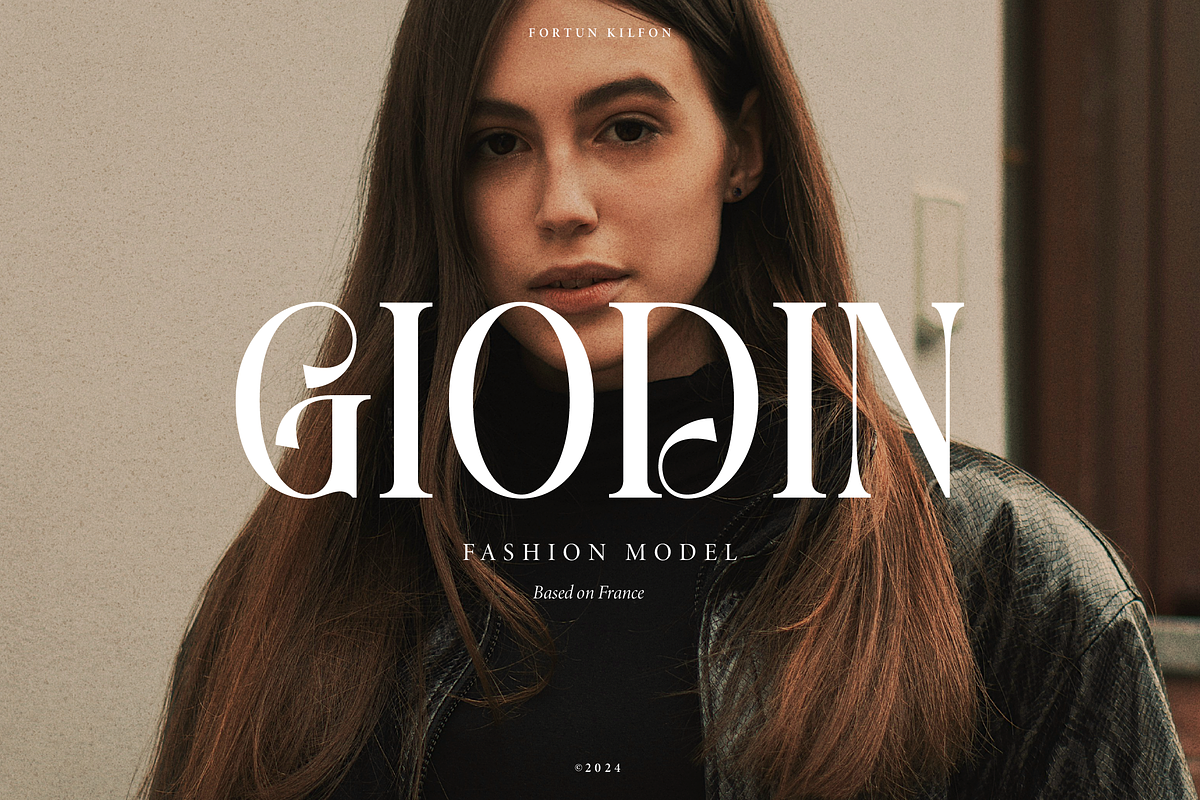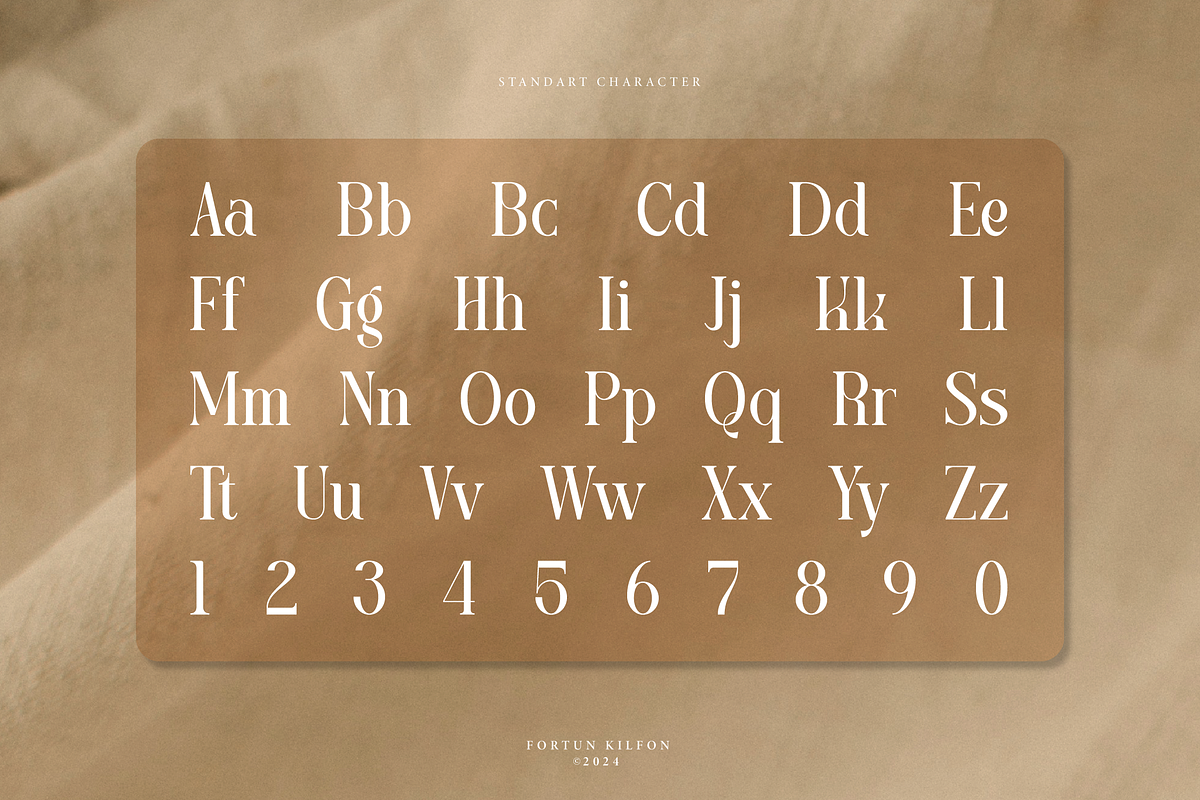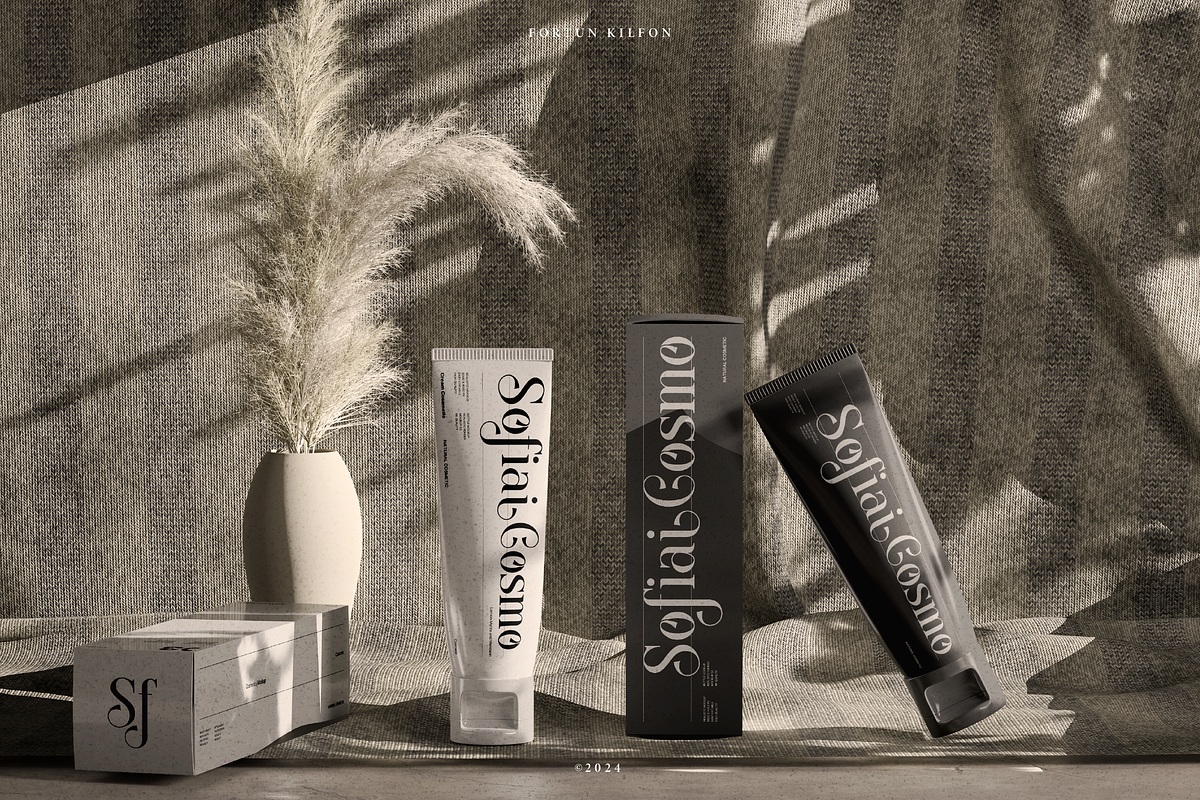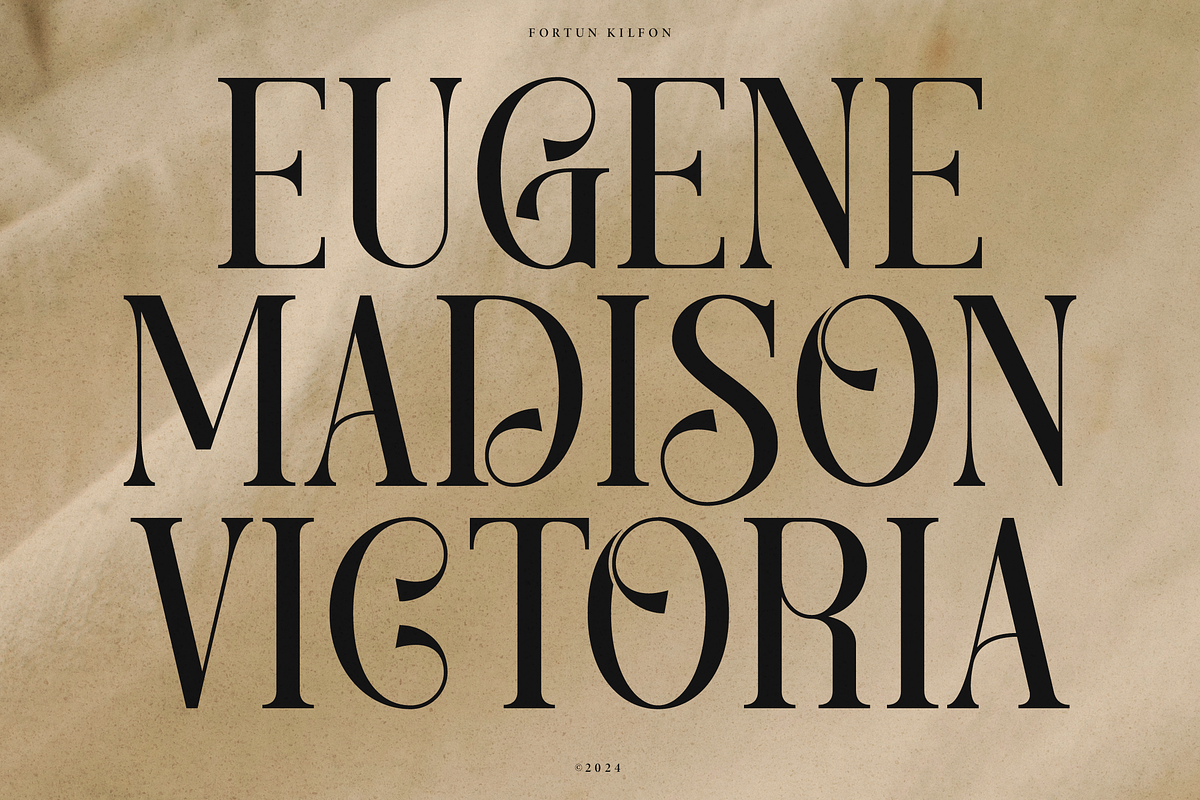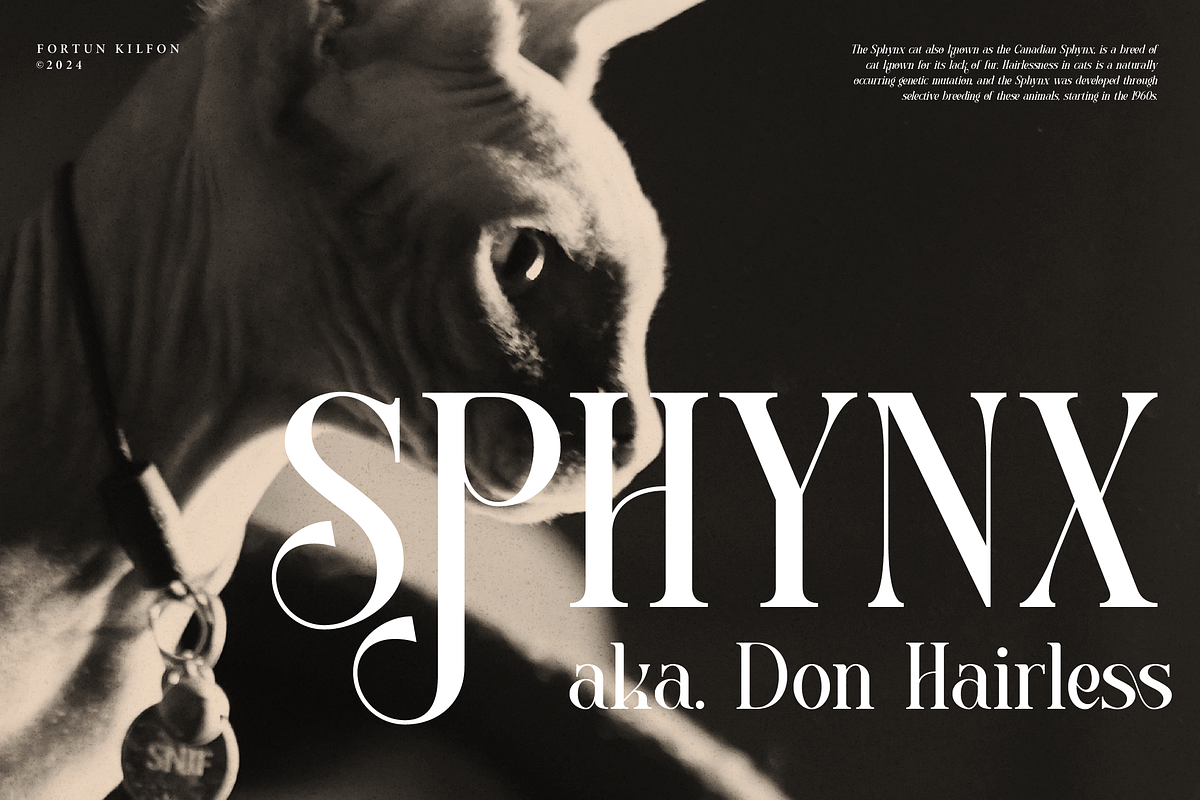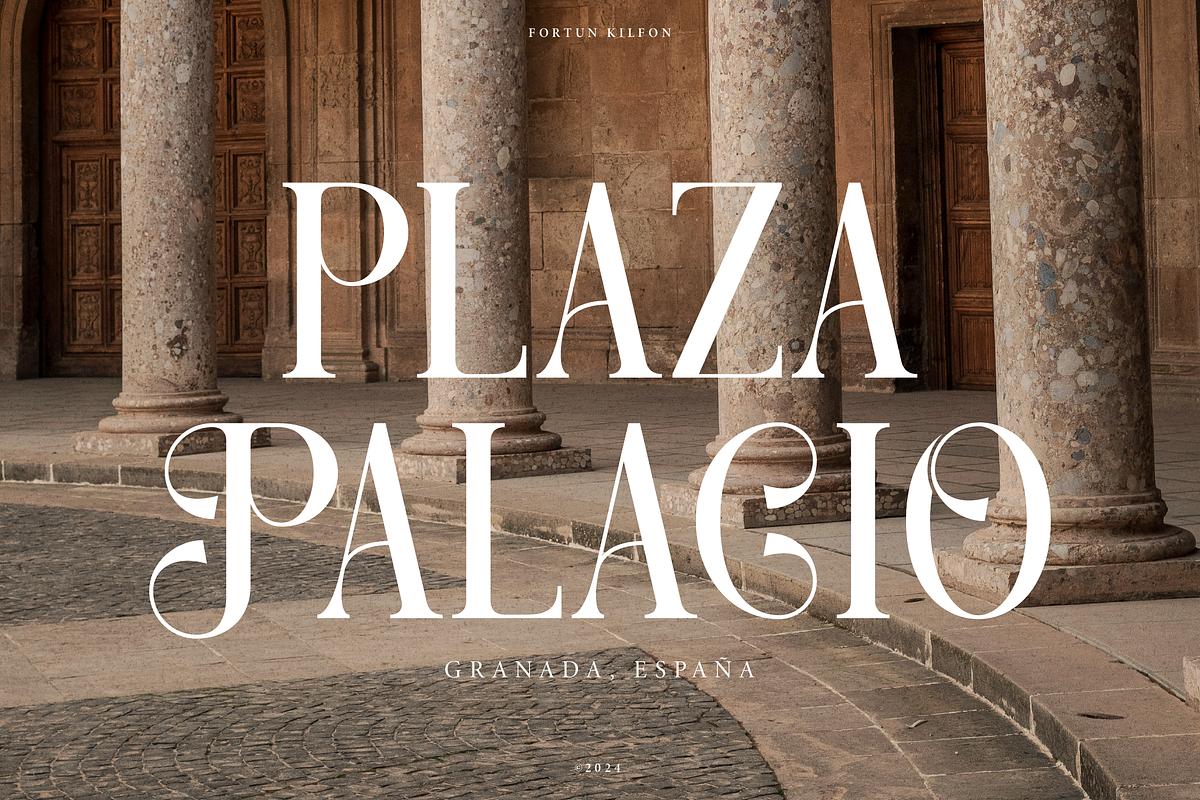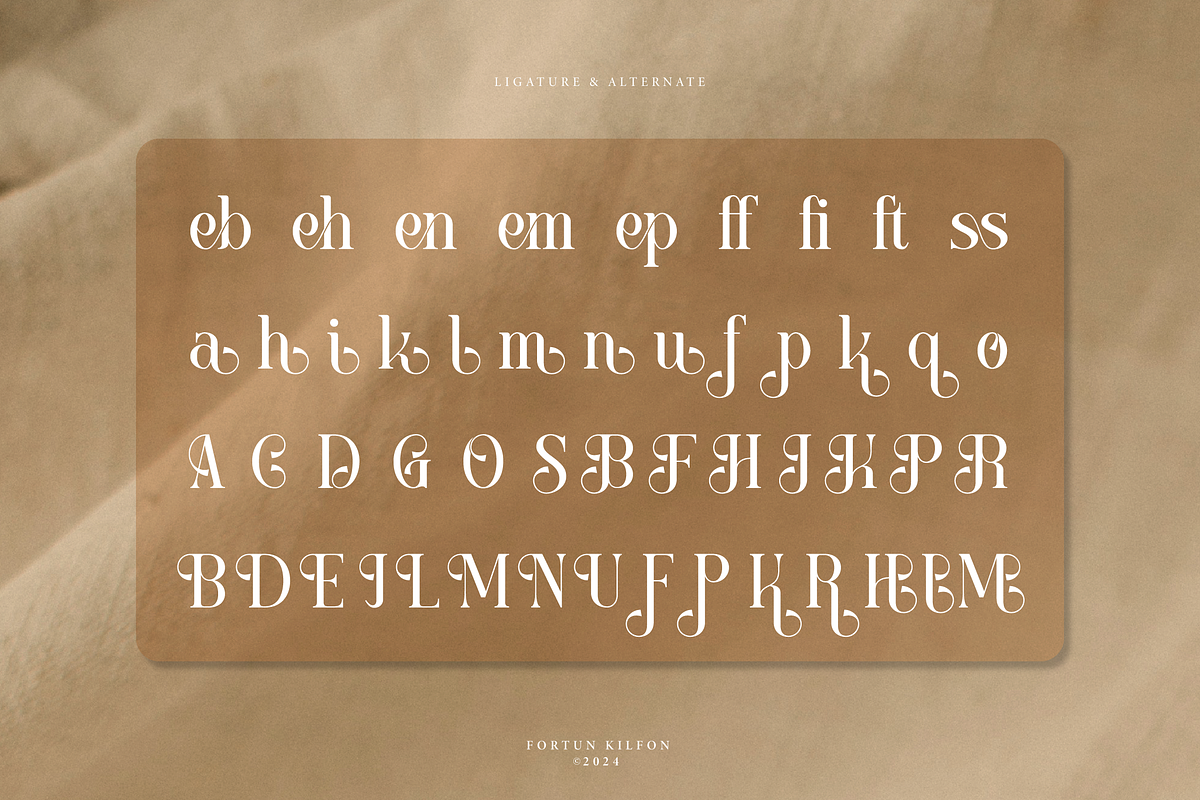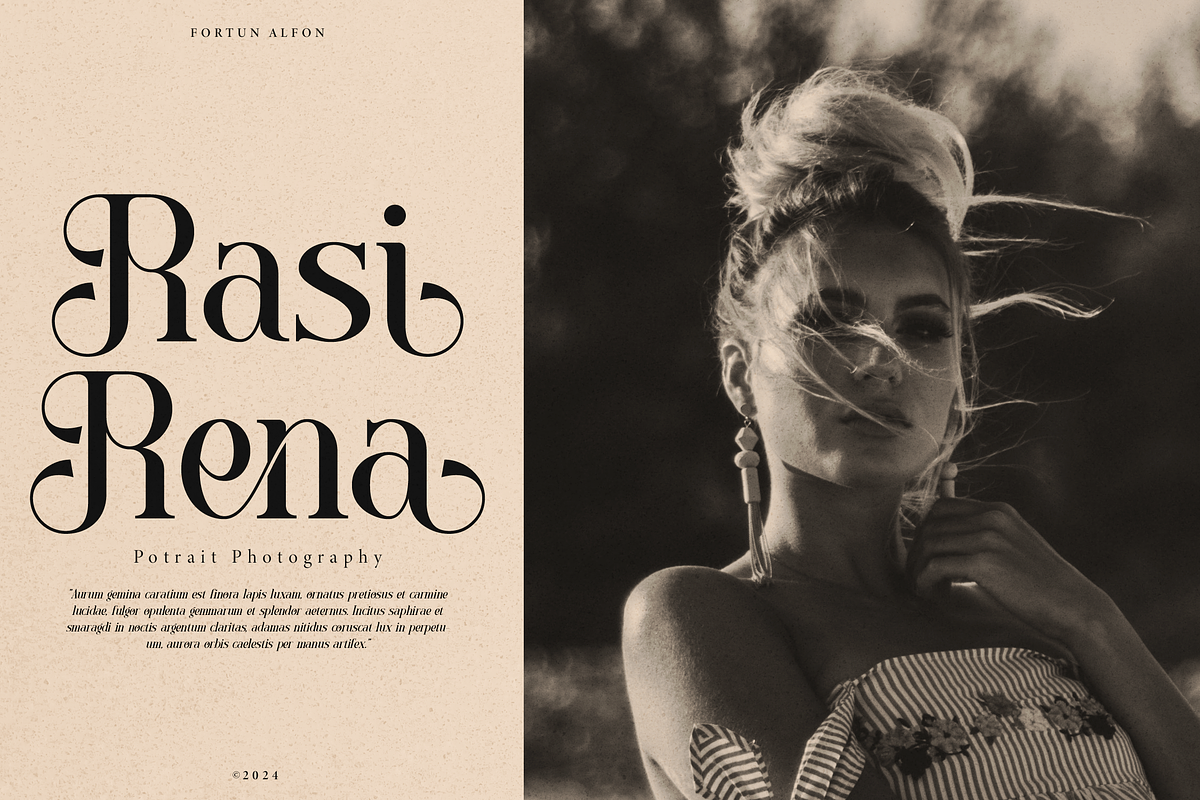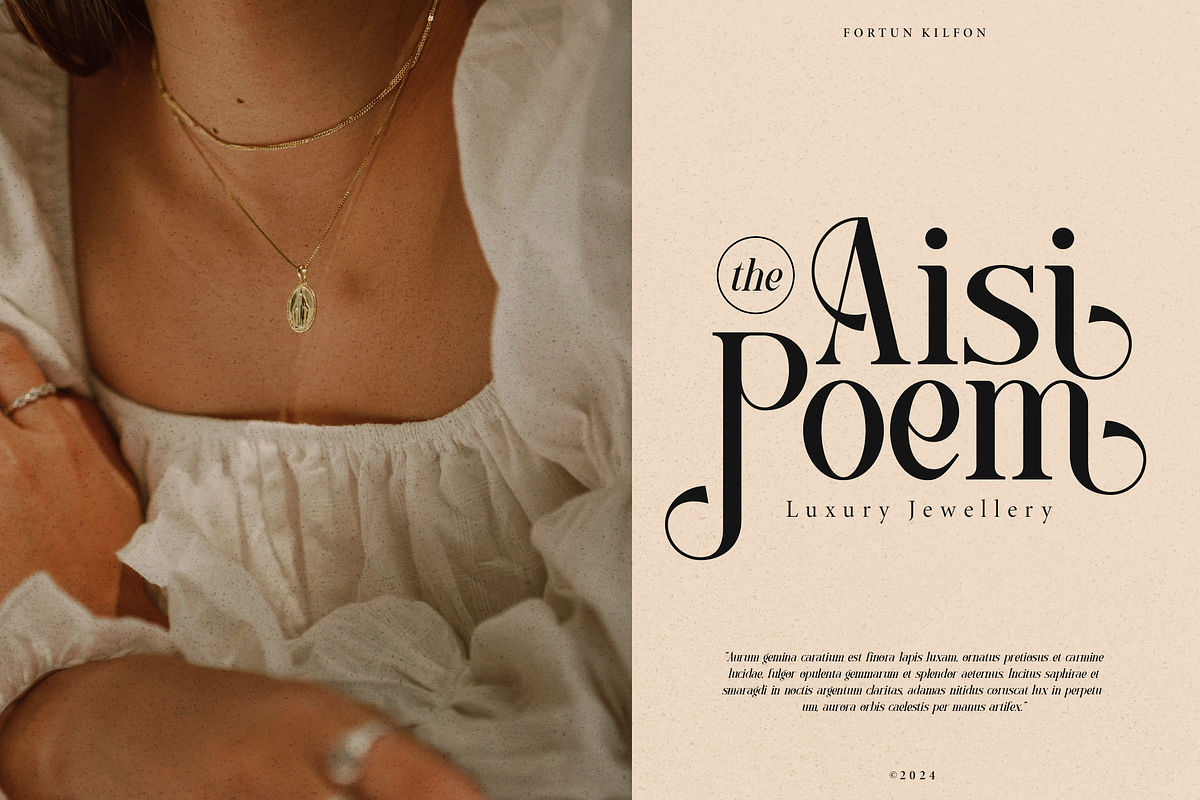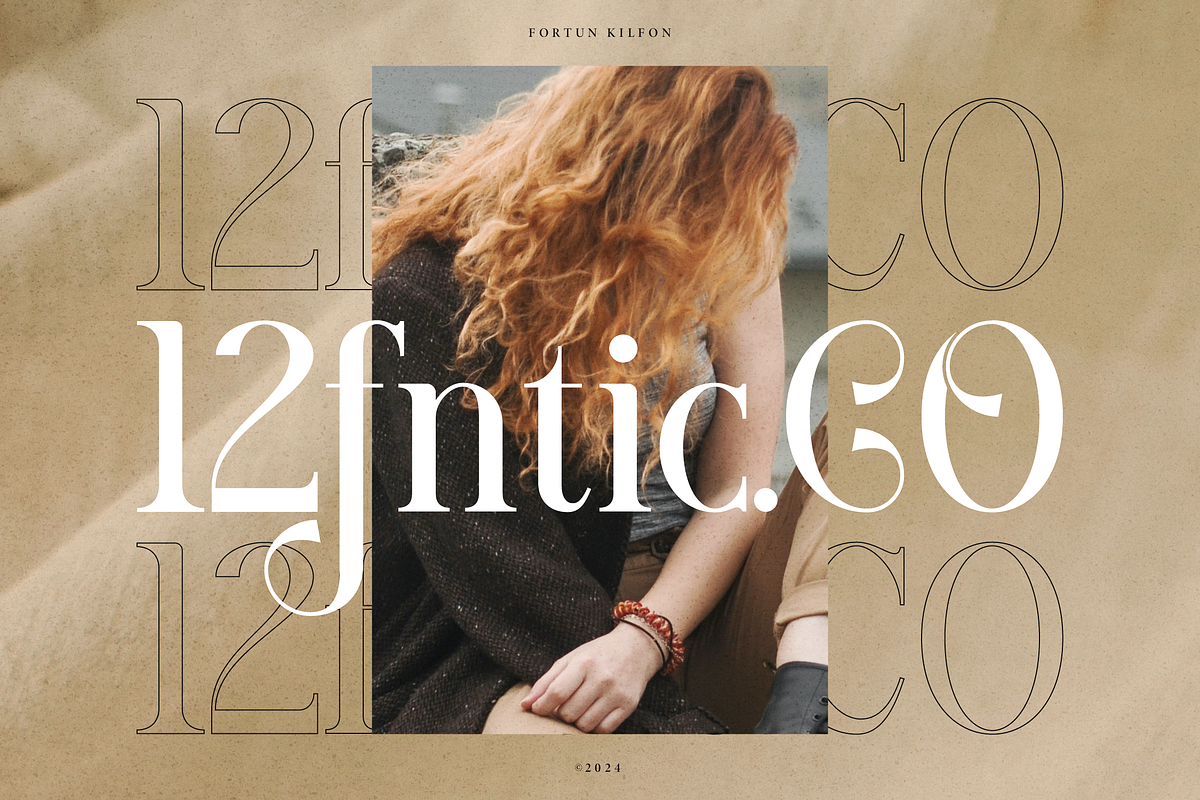
Fortun Kilfon | Modern Elegant Serif
Fortun Kilfon | Modern Elegant Serif, from Denustudios, suitable for any projects such as: logos, branding projects, homeware designs, product packaging, mugs, quotes, posters, shopping bags, t-shirts, book covers, name card, invitation cards, greeting cards, label, photography, watermark, special events, and all your other lovely projects that need a Modern Elegant Serif taste.